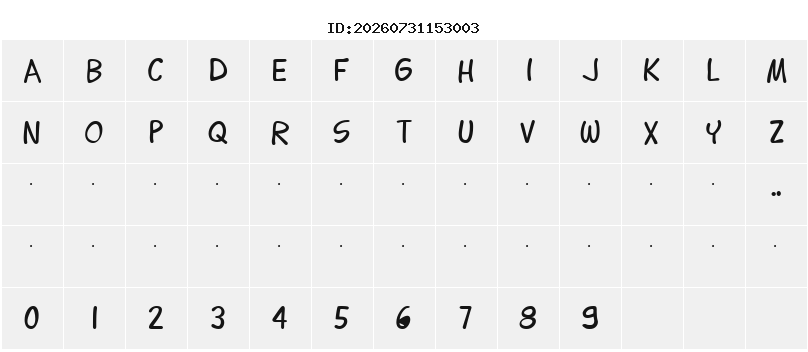
• Font Name: Lettering1
About Lettering1.ttf
Lettering1.ttf is a modern, elegant sans-serif font designed for ultimate readability and visual harmony. Perfect for branding, headlines, web design, and print materials.